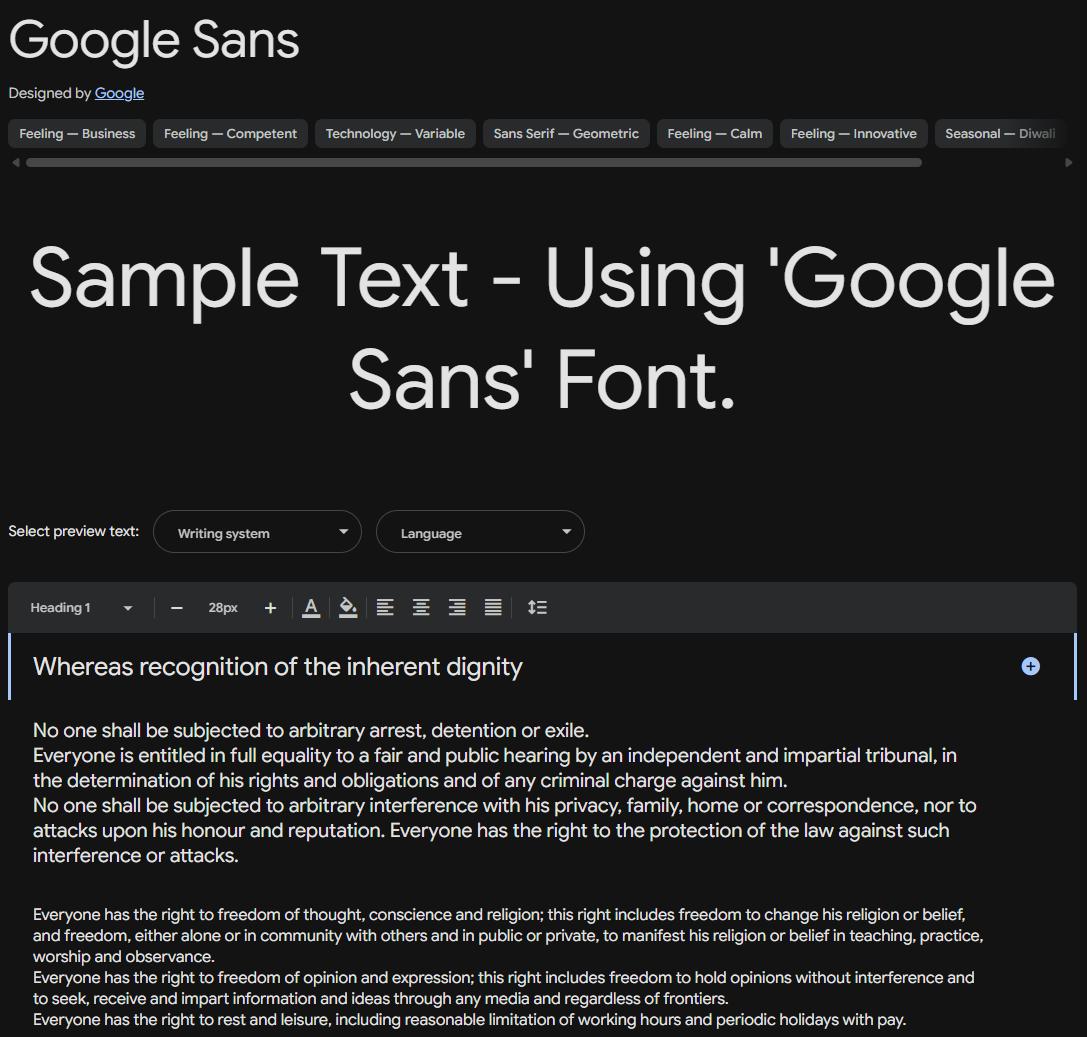
Google Sans functions as the structural bedrock of Google's Material You design language, evolving beyond its geometric lineage into a high-performance variable font that leverages four distinct axes-weight, width, optical size, and grade-to master the complexities of modern screen density. By utilizing the optical size (opsz) axis for micro-legibility and the non-reflowing grade (GRAD) axis for subtle weight adjustments that preserve layout stability, the typeface achieves a level of typographic fluidness that traditional static OTF files cannot match. This multi-axis interpolation enables a responsive typographic hierarchy where CSS properties can dynamically modulate glyph geometry in real-time, ensuring that the brand's signature aesthetic remains accessible and visually coherent across an infinite spectrum of viewport dimensions and user-defined accessibility settings.
Google Sans represents a sophisticated evolution in digital typography, blending the rigid structural integrity of a geometric sans-serif with the nuanced legibility found in traditional grotesque apertures to project a feeling of business competence and innovative calm. As a high-performance variable font, it utilizes dynamic weight axes to maintain visual harmony across disparate resolutions, ensuring that the brand's technological identity remains consistent whether it is anchoring a professional productivity suite or celebrating seasonal cultural milestones like Diwali. By prioritizing high x-heights and open counters, the typeface achieves a unique balance between a clinical, technological aesthetic and a humanistic warmth, effectively communicating a sense of reliability and modern efficiency. This versatility allows the family to transition seamlessly from a structured corporate environment to a vibrant festive context, proving that its refined geometry is as functional as it is expressive within the global design landscape.
While Google Sans Variable excels in fluid digital interfaces through its four-axis interpolation of weight, width, optical size, and grade, its geometric construction and low-stroke contrast render it functionally incompatible with high-stakes legal archiving and the artisanal "Didone" requirements of luxury heritage branding. The typeface's distinctive aperture shapes and uniform stroke weight-optimized for screen-based anti-aliasing and rapid information processing-lack the formal gravitas and high-contrast vertical stress necessary for long-form judicial transcripts or classical typesetting, where traditional serifs provide the essential horizontal flow and terminal flourishes required for sustained physiological readability. Furthermore, because its visual DNA is inextricably linked to the Google brand ecosystem, utilizing this specific variable font for non-partisan institutional documentation or niche luxury sectors risks "brand-proxying," where the typeface's inherent corporate friendliness undermines the perceived exclusivity of high-fashion editorial design or the austere neutrality demanded by sovereign governmental records.
Google Sans is classified as a geometric sans-serif typeface designed for high clarity and modern aesthetics. Its design follows the mathematical precision of Euclidean geometry, utilizing a 1:1 circular ratio in its round characters to maintain structural balance across digital interfaces.
While Google Sans is tailored for display and headlines, Google Sans Text is engineered specifically for body copy and smaller sizes. The Text variant incorporates increased letter spacing and larger x-heights, reducing visual crowding to improve reading speeds in dense UI environments.
The font family includes comprehensive variable font support to allow for seamless adjustments in layout. By utilizing the 'wght', 'wdth', and 'opsz' axes, developers can reduce file size significantly compared to loading multiple static font weights while maintaining fluid responsiveness.
The family encompasses a broad range of weights spanning from Thin (100) to Black (900). This extensive weight range facilitates complex information hierarchies, allowing for precise contrast ratios that meet WCAG 2.1 accessibility standards across various light and dark modes.
The typeface is highly recommended for high-density layouts when the Google Sans Text variant is applied for increased legibility. Its open counters and distinct terminals prevent character "smearing" on low-resolution displays, ensuring that legibility remains intact at sizes as small as 10px.
Google Sans serves as the cornerstone typeface for the Material Design 3 ecosystem and the Android operating system. The integration of this font within the M3 framework leverages dynamic color mapping to ensure that font weight and stroke thickness appear consistent across various background luminance levels.
The typeface provides extensive support for a wide array of non-Latin scripts including Cyrillic, Greek, and others. Through the use of comprehensive Unicode block mapping, the family maintains a unified visual identity across more than 50 different localized script variants to ensure global brand consistency.
It is a production-ready iteration derived from the original Product Sans logo typeface used in Google branding. Technical adjustments to the glyph geometry were made to transition from a branding-focused "logo-type" to a UI-capable typeface that minimizes kerning errors in dynamic text strings.
For long-form reading, the Google Sans Text variant is the appropriate choice to ensure user comfort and reading stamina. User experience research indicates that the adjusted tracking and vertical metrics of the Text variant significantly lower cognitive load during prolonged exposure to digital screens.
Every weight in the Google Sans family is accompanied by a corresponding oblique style to provide emphasis. These italicized versions utilize a specific slant angle designed to preserve the geometric integrity of the 'a' and 'g' glyphs without distorting the underlying vector paths.